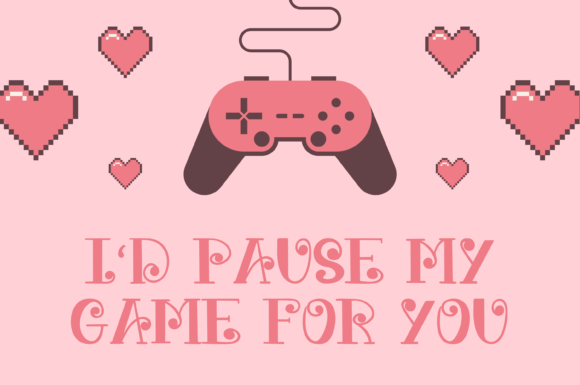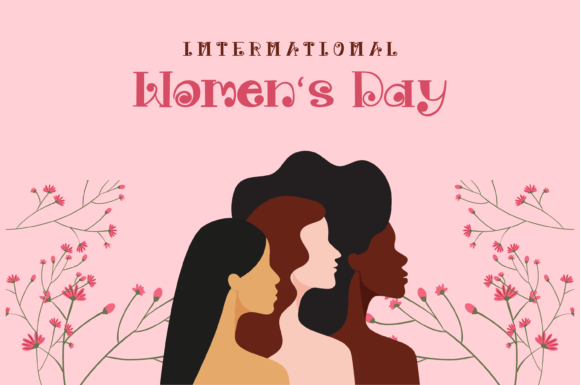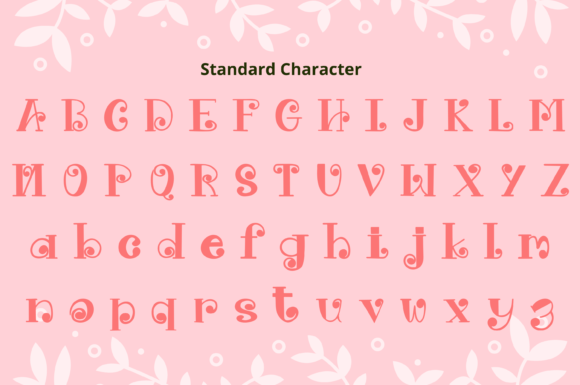
About Pink Ladies Font
Pink Ladies is a whimsical and playful handwritten display font designed to bring a sense of fun and vibrancy to your creative projects. With its lively and carefree style, this font is easily adaptable to an incredibly large set of projects. Adding Pink Ladies to your creative ideas is sure to make them stand out with a touch of whimsy.
The whimsical and fun nature of Pink Ladies is immediately noticeable, making it an excellent choice for projects that require a lighthearted and energetic vibe. The handwritten display font style adds a personal touch, creating a visual experience that is both charming and memorable.
Pink Ladies’ versatility allows it to seamlessly integrate into various design contexts. Whether you’re working on posters, invitations, social media graphics, or other creative projects, Pink Ladies brings a delightful and playful aesthetic to the forefront.
Incorporating Pink Ladies into your projects is an invitation to infuse them with a sense of whimsy and fun. This handwritten display font becomes a lively tool, ready to add character and charm to your designs, making them stand out with a playful and creative appeal.
In summary, Pink Ladies is more than just a font; it’s a whimsical and fun design asset that brings vibrancy to your projects. With its playful handwritten display style, Pink Ladies stands ready to be the perfect companion for a variety of creative endeavors, making your designs lively, fun, and uniquely crafted.